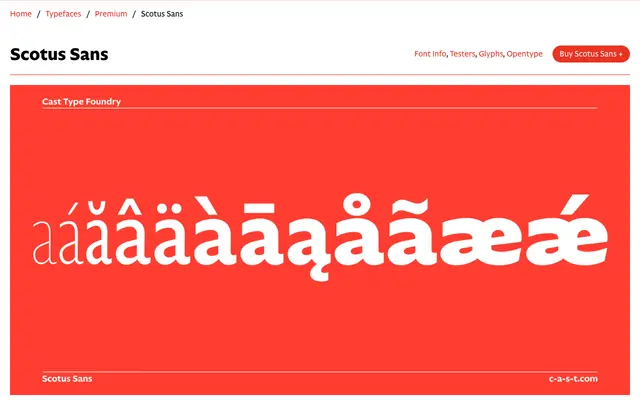
Scotus Sans
CAST · Giulio Galli, Riccardo Olocco, Luciano Perondi · 2021
A humanist sans derived from the skeleton of the roman used by Octavianus Scotus in Venice in 1481, designed for long-form reading across print and screen.
Galli, Olocco and Perondi worked from the original Scotus roman, rationalising its letterforms into a low-contrast digital sans across nine weights and five widths, from Compressed to Extended, each with a matching italic. The 10-degree italic is slightly condensed and carries its own personality rather than functioning as a mere slant. The family draws a direct line from Johnston and Gill Sans while anchoring itself to a specific 15th-century model rather than a general humanist ideal.
Low-contrast humanist sans derived from the skeleton of a 15th-century Venetian roman, placing it firmly in the humanist sans tradition alongside Johnston and Gill Sans as acknowledged reference points.